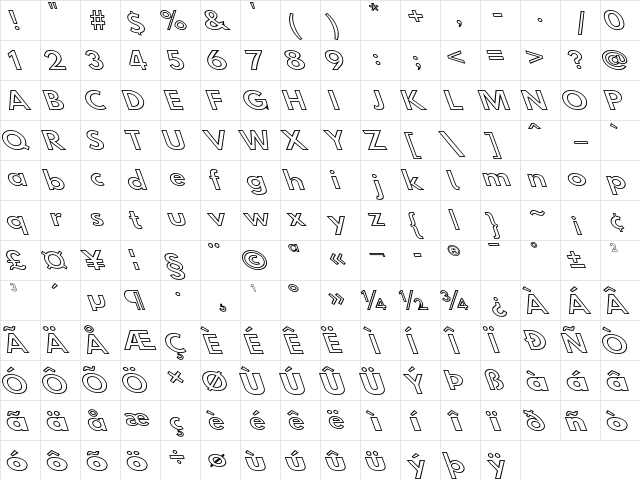
Hussar Simple SuprExtGhoOpObl3
Design Context for Hussar Simple Typeface
Hussar Simple offers clean, dependable letterforms without strong stylistic allegiance, making it a practical choice for designers who need flexibility.
Pro Tip: Pair Hussar Simple with a font of contrasting weight or personality to build a more expressive typographic hierarchy.